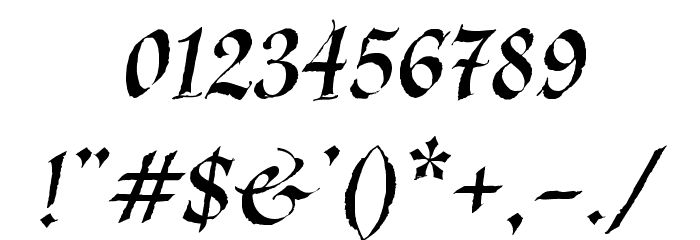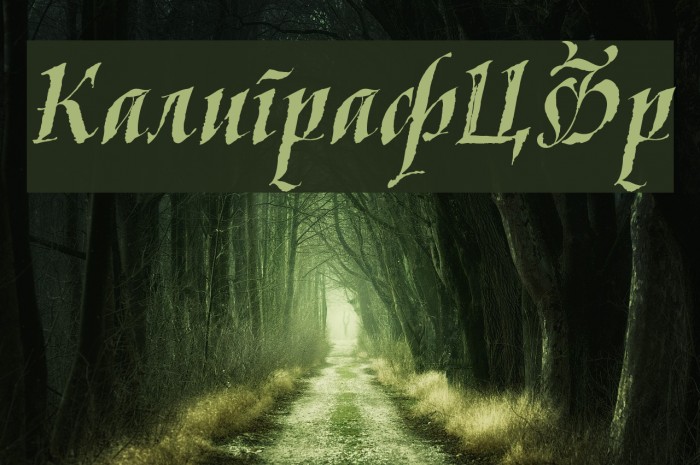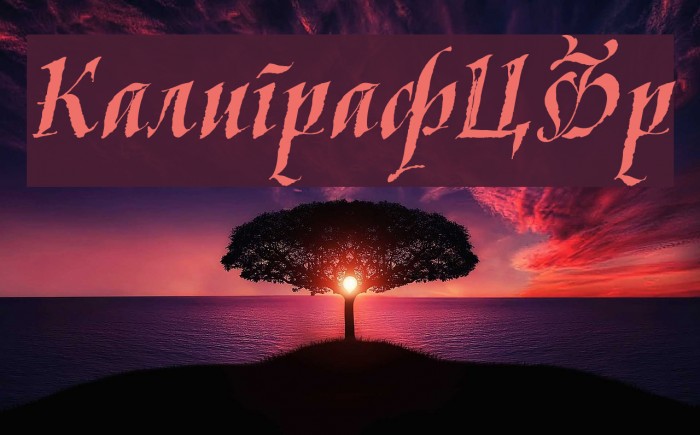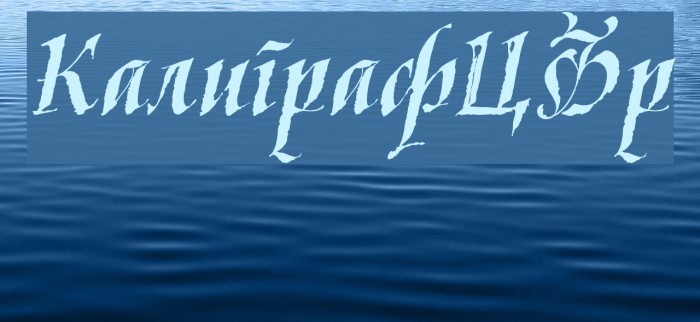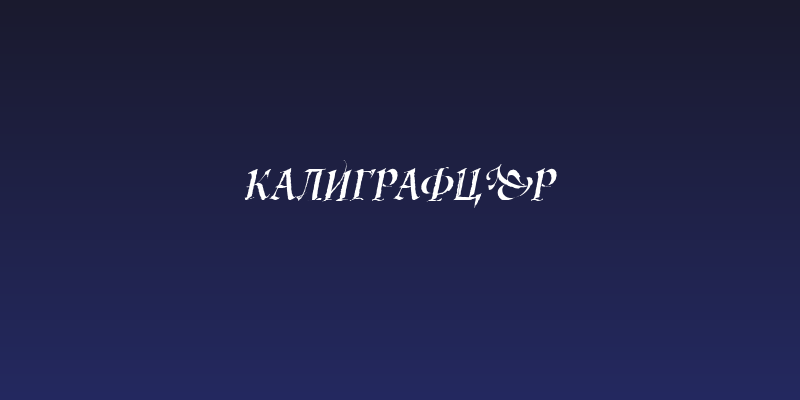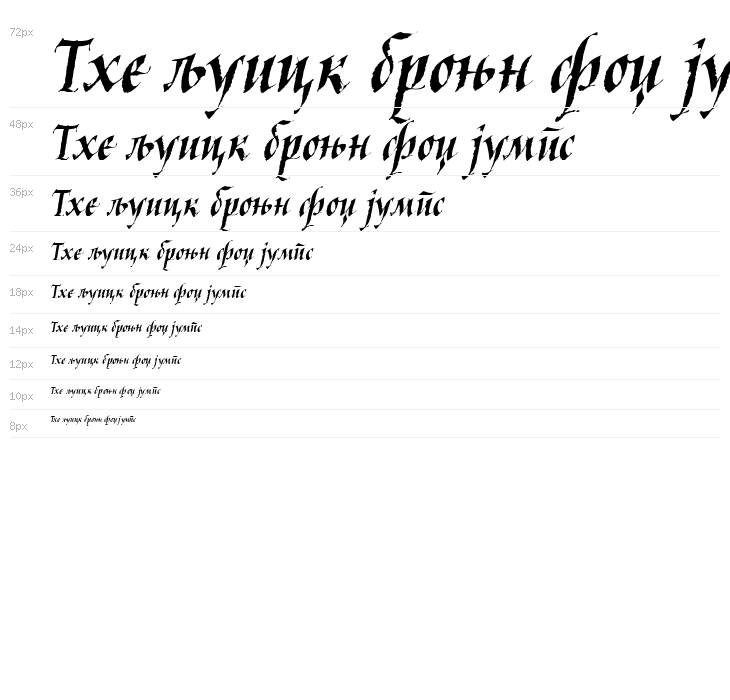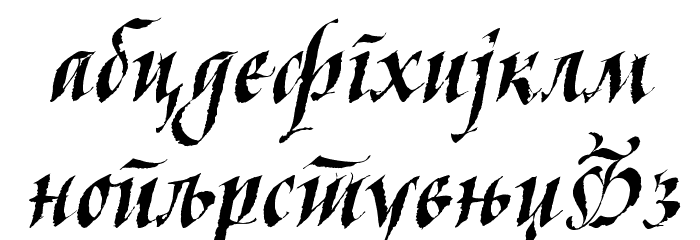
KaligrafCyr Font
This font exhibits a classic calligraphic style with a strong emphasis on traditional Cyrillic script. The characters are elegantly crafted with sharp, angular strokes that convey a sense of formality and sophistication. The uppercase letters are bold and commanding, while the lowercase letters maintain a graceful flow, enhancing readability. The numerals are consistent with the overall style, featuring similar angular and sharp characteristics. Special characters are designed with the same attention to detail, ensuring a cohesive look across all glyphs. This font is ideal for projects that require a touch of elegance and historical depth.
| Use Case | Headlines, Logos, Formal documents |
| Proposed Projects | Ideal for formal invitations, certificates, historical documents, and branding that requires a classic touch. |